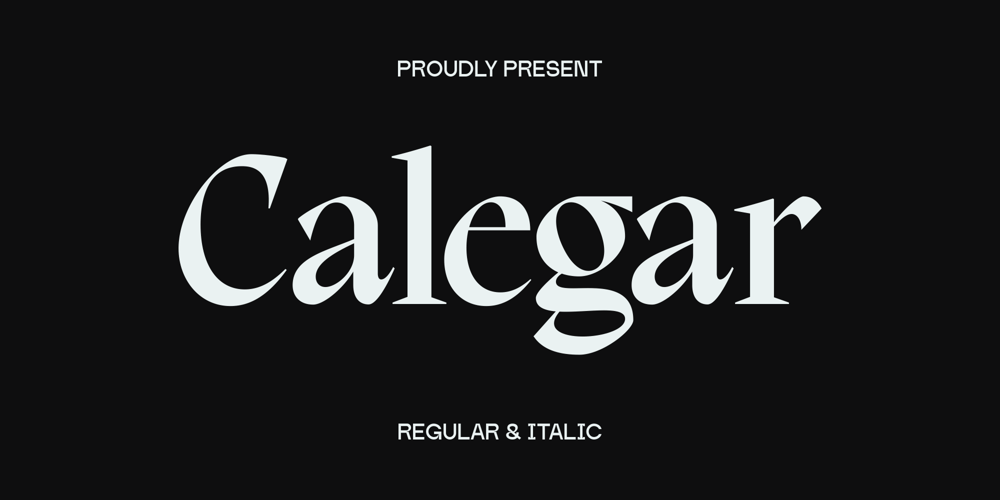
Calegar Font Family was designed by Febrie Setiawan and published by Marvadesign. Calegar contains 2 styles and family package options. Introducing Calegar is a serif display font that embodies a blend of classic elegance and modern sophistication. This font family includes two styles, regular and italic. Its clean and refined design makes it an excellent choice for corporate branding, brand identity projects, and other professional uses. Calegar’s well-defined serifs and balanced letterforms ensure readability while adding a touch of distinction, making it suitable for both print and digital media.